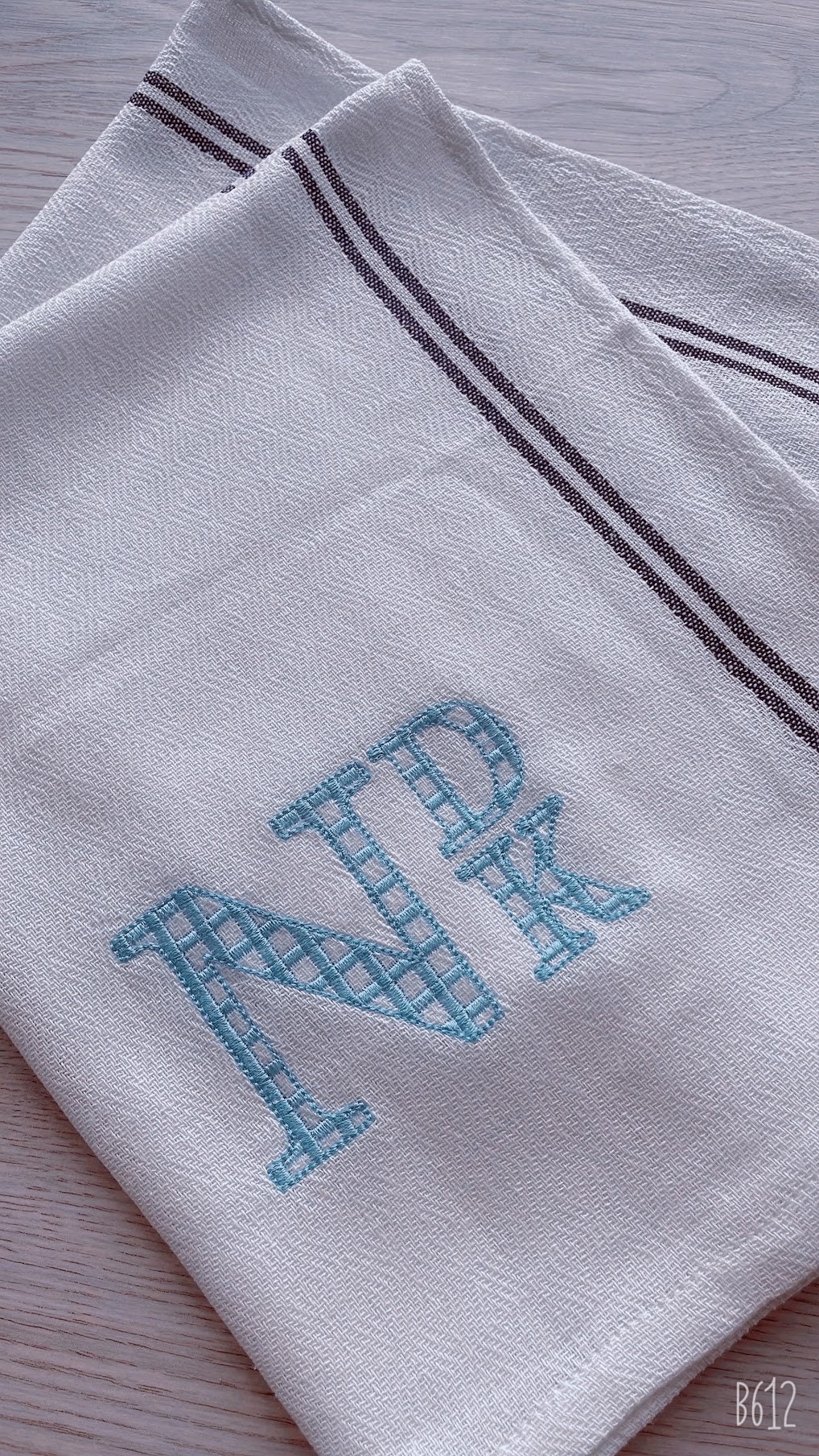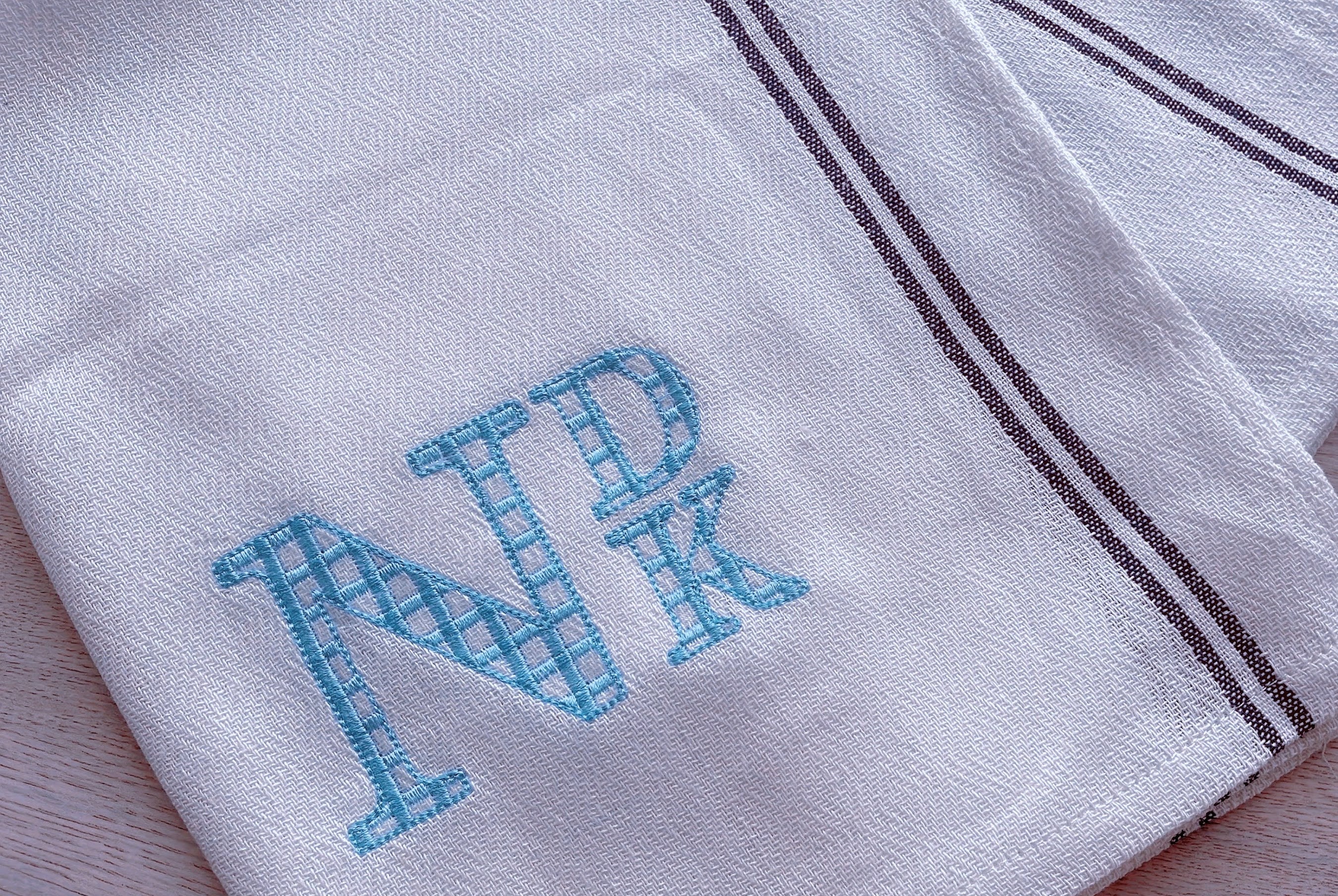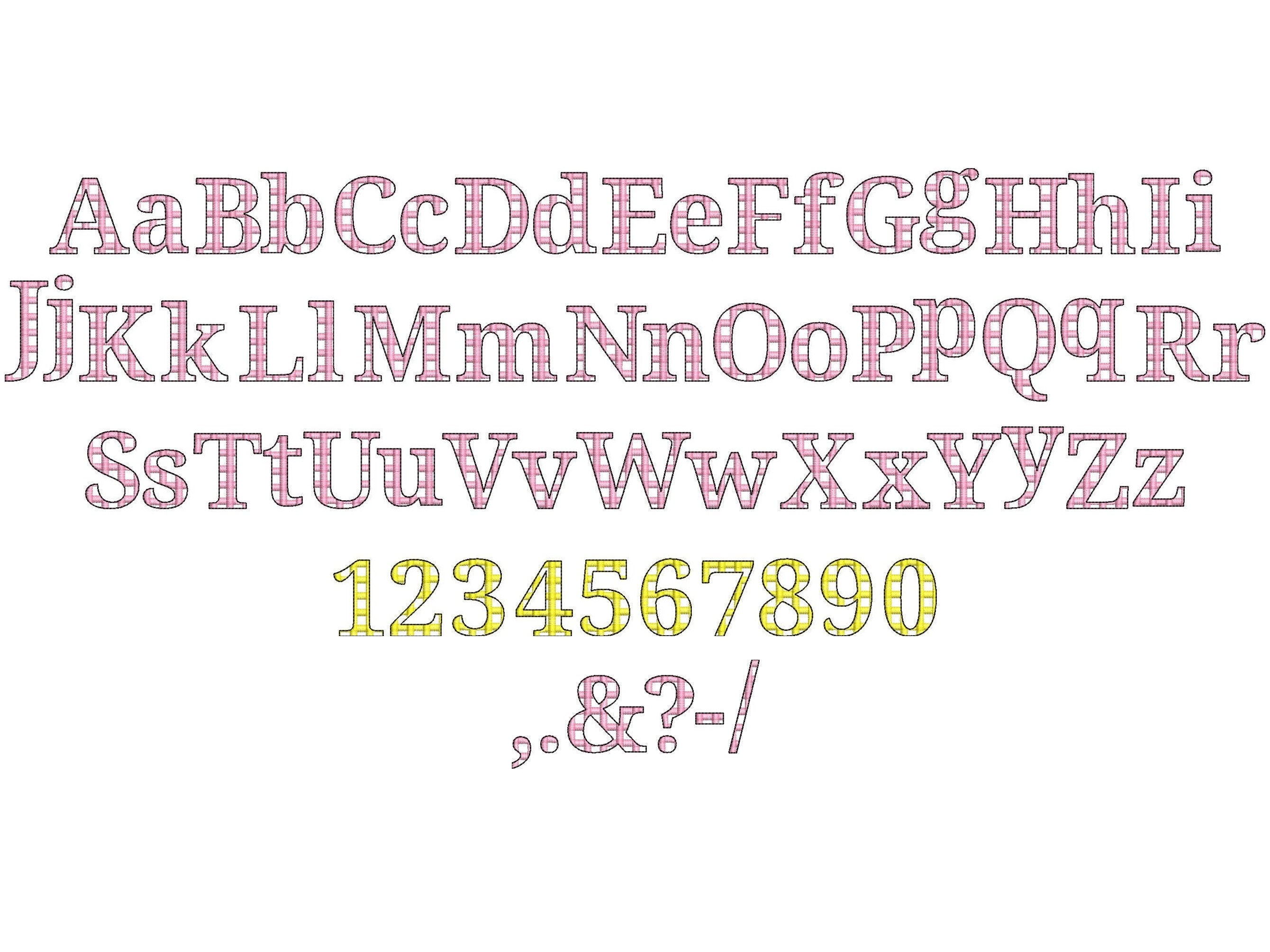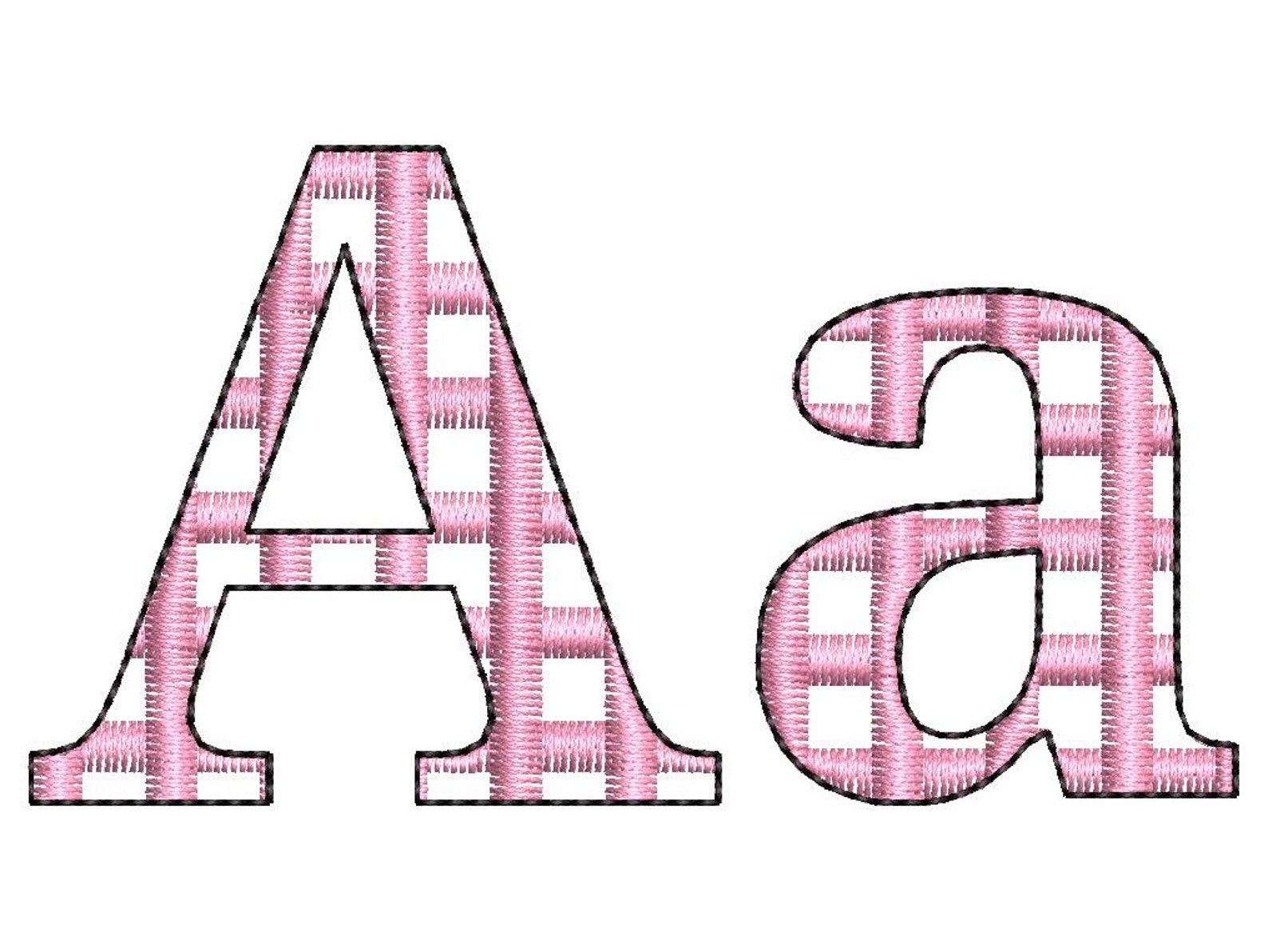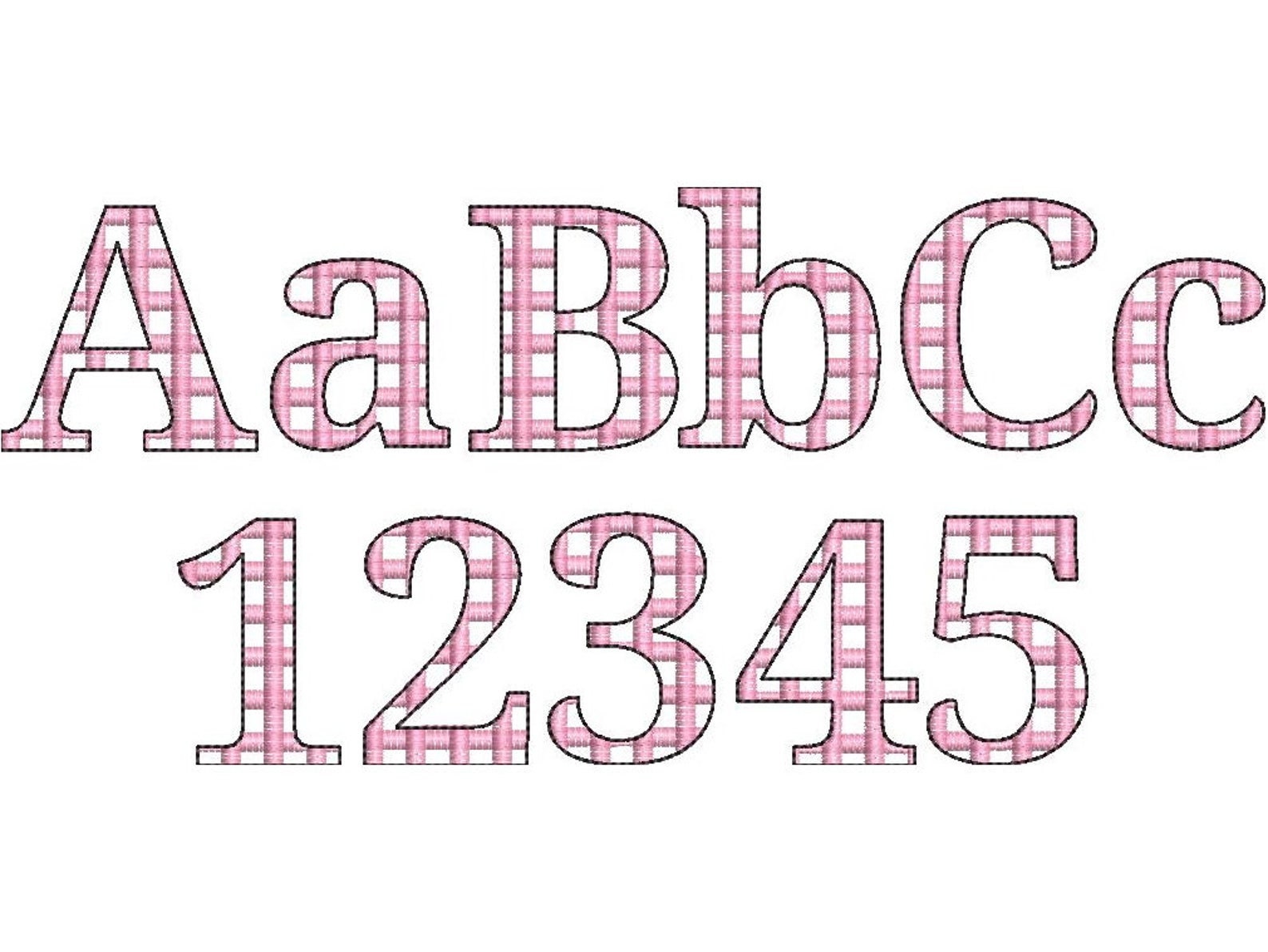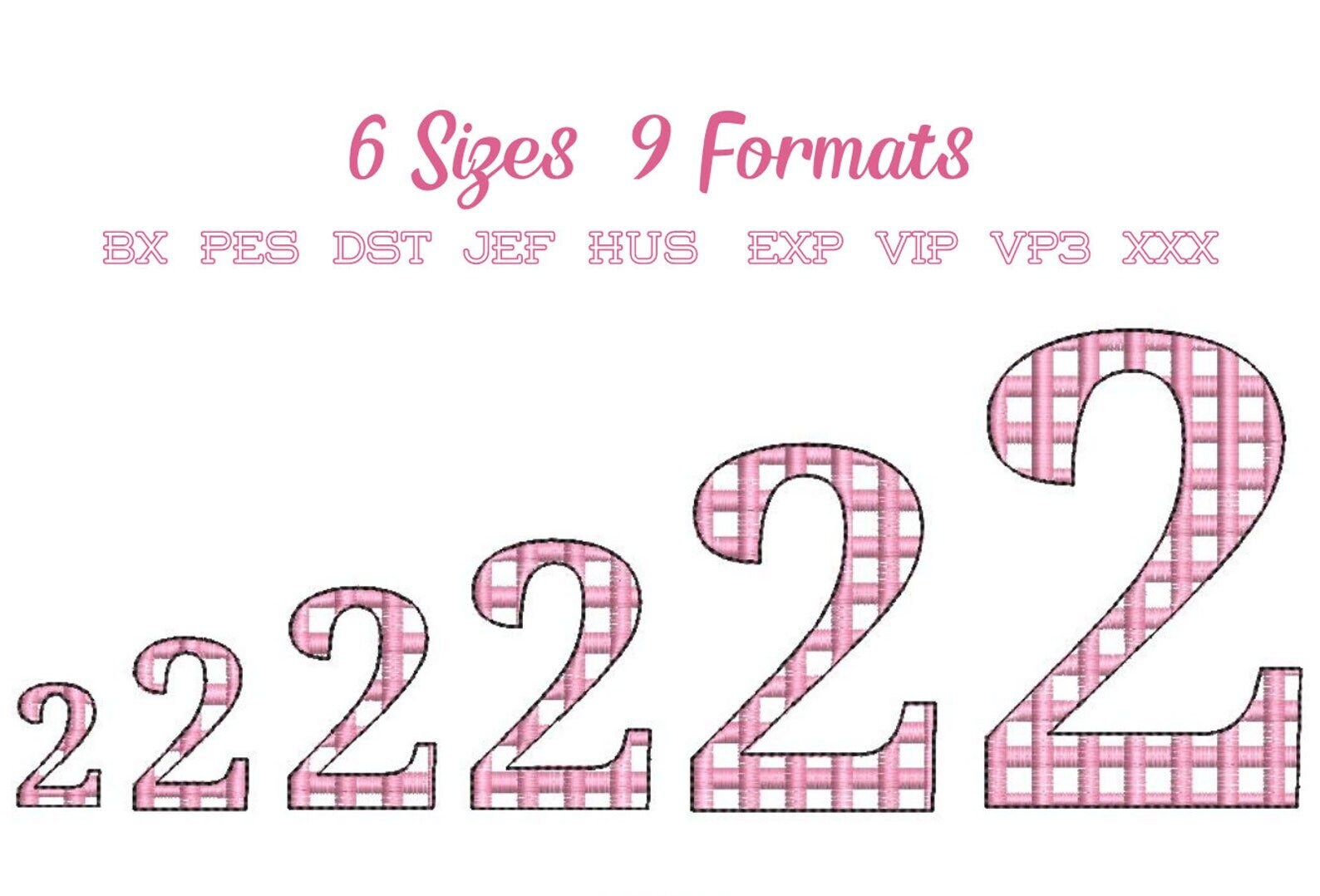
Classy Checkered Plaid Font light sketch stitch outline machine embroidery designs font alphabet name monogram letters in assorted sizes, BX included
This is a quick stitch design, the background fabric looks through. Stunning effect.
The checkered print is a part of the embroidery.
Whole alphabet - uppercase and lowercase, numbers and punctuation & . , - ? ! /